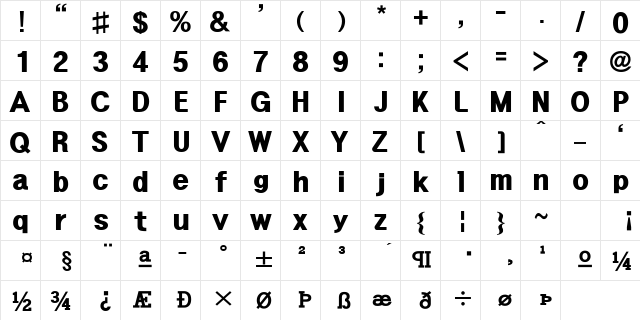
״䴜 Regular
Design Context for ״��䴜�� Typeface
״��䴜�� offers clean, dependable letterforms without strong stylistic allegiance, making it a practical choice for designers who need flexibility.
Pro Tip: Use ״��䴜�� in both headline and body roles to test its range before committing to a single application.